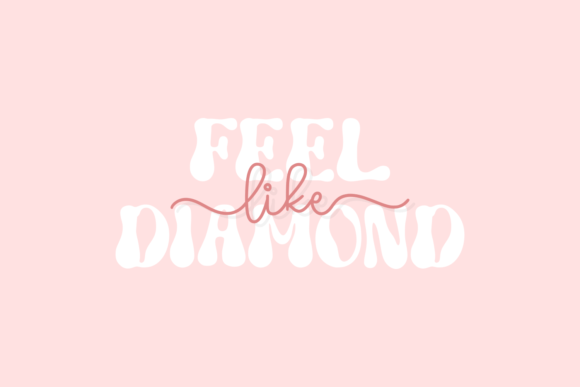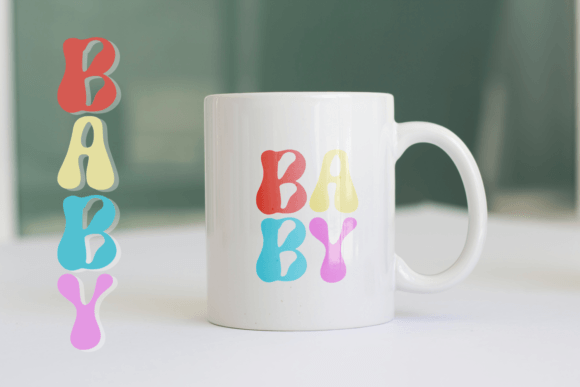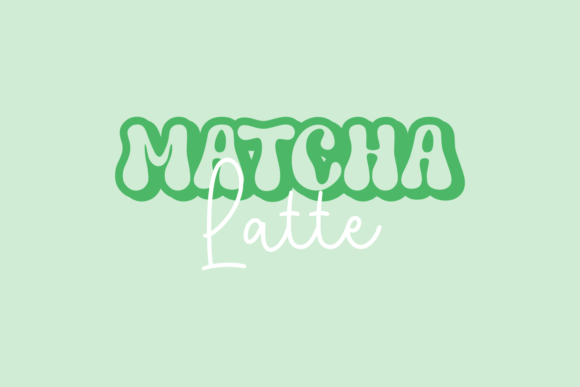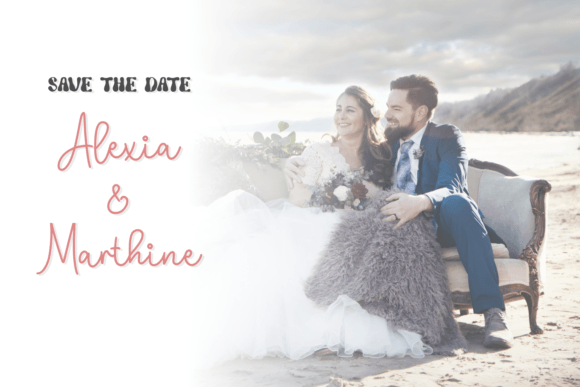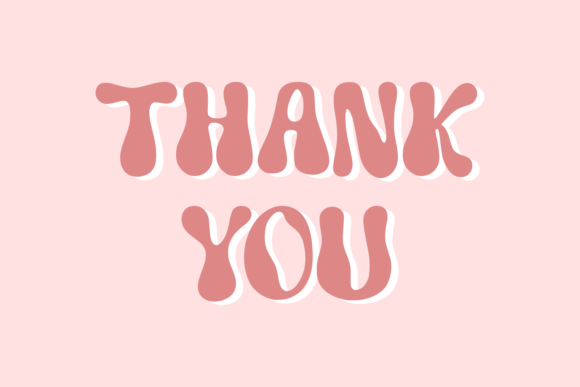
Introducing the Grandma House Duo Font: Elevate Your Designs with a Sweet and Fun Twist
Are you tired of using the same old fonts in your designs? Look no further! The Grandma House Duo Font is here to revolutionize your creative projects with its unique blend of sweetness and fun. This fantastic font duo, consisting of a sans serif and script font, is perfect for designers and crafters looking to add a personal touch to their work.
What Makes Grandma House Duo Font Special?
The Grandma House Duo Font is more than just a font – it’s an experience. Its sweet and fun design will instantly capture the attention of your audience, making your designs stand out from the crowd. Whether you’re working on logos, labels, branding, invitations, websites, quotes, or more, this font duo is the perfect companion to help you achieve your creative vision.
Key Features of Grandma House Duo Font
- Font Duo: The Grandma House Duo Font comes with two complementary fonts – a sans serif and a script font. This allows you to mix and match the fonts to create visually appealing combinations that add depth and interest to your designs.
- Sweet and Fun Design: The font’s unique design is both sweet and fun, making it perfect for projects that require a playful touch. From invitations to branding, this font will add a dash of personality to your work.
- High Versatility: The Grandma House Duo Font is incredibly versatile, making it suitable for a wide range of projects, including logos, labels, branding, invitations, websites, quotes, and more.
How to Use Grandma House Duo Font in Your Designs
Using the Grandma House Duo Font in your designs is easy and straightforward. Here are a few ideas to get you started:
- Logos and Branding: Create a memorable logo for your business or brand using the Grandma House Duo Font. The font’s unique design will help you stand out from the competition and establish a strong brand identity.
- Invitations and Stationery: Add a personal touch to your invitations, cards, and stationery with the Grandma House Duo Font. The font’s sweet and fun design is perfect for special occasions, such as weddings, birthdays, and baby showers.
- Websites and Blogs: Use the Grandma House Duo Font to create visually appealing headings, titles, and quotes for your website or blog. The font’s high readability ensures that your content will be easy to read and understand.
- Social Media Graphics: Create engaging social media graphics using the Grandma House Duo Font. The font’s fun design will help you grab the attention of your audience and increase engagement.
Benefits of Using Grandma House Duo Font
By incorporating the Grandma House Duo Font into your designs, you’ll enjoy several benefits, including:
- Increased Creativity: The font’s unique design will inspire you to think outside the box and try new things, leading to more creative and innovative designs.
- Improved Brand Identity: The Grandma House Duo Font will help you establish a strong brand identity that sets you apart from the competition.
- Enhanced Visual Appeal: The font’s sweet and fun design will add a touch of personality to your designs, making them more visually appealing and engaging.
In conclusion, the Grandma House Duo Font is a must-have for designers and crafters looking to elevate their creative projects. Its sweet and fun design, high versatility, and ease of use make it the perfect addition to your font collection. Whether you’re working on logos, labels, branding, invitations, websites, quotes, or more, this font duo is sure to boost your designs and make them a true standout!